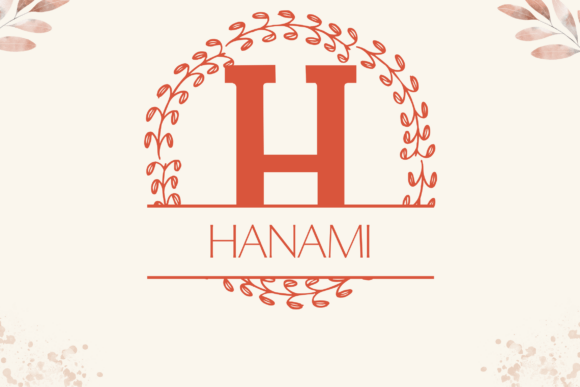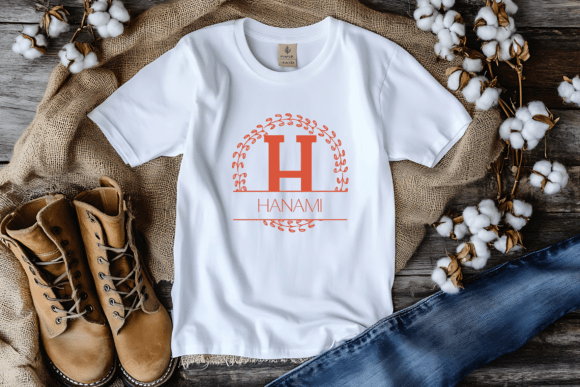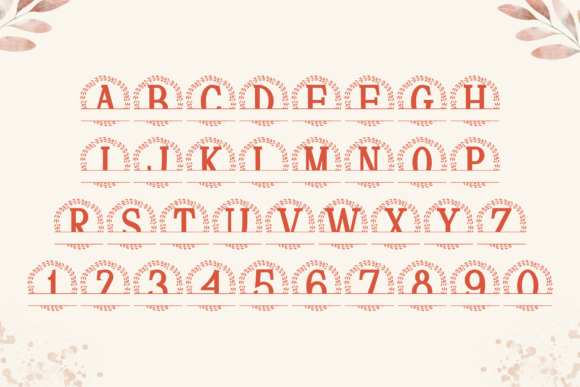
Introduction to Ophelian Split Monogram Font
Have you ever found yourself in the midst of a creative project, surrounded by scraps of paper, font samples, and a sea of design options? As a designer, I know the struggle is real. But what if you could find a single resource that elevates your design game, making it easier to create stunning, high-quality monograms for your clients or loved ones? Enter the Ophelian Split Monogram Font, a refined and elegant serif font that’s about to become your new go-to design resource.
With its classic elegance and clean horizontal break, Ophelian Split Monogram Font is perfect for adding names, initials, or special messages to any monogram. Whether you’re designing custom wedding decor, personalized home items, or creating professional logos, this font delivers timeless style with a user-friendly split format.
Key Features of Ophelian Split Monogram Font
- Unique Monogram Design: The Ophelian Split Monogram Font features a distinctive split monogram design that is perfect for creative projects, making it a valuable design resource.
- Perfect for Personalized Designs: The Ophelian Split Monogram Font is ideal for creating personalized designs, such as wedding invitations, birthday cards, and other special occasion projects.
Honest Review: Ophelian Split Monogram Font
I recently stumbled upon the Ophelian Split Monogram Font, and I must say it’s been a game-changer for my design projects. This font is a high-quality design resource that’s perfect for any creative project.
What works well about the Ophelian Split Monogram Font is its unique, elegant design. It features a beautiful split monogram style that’s both sophisticated and eye-catching. The font is available for free download, which is a huge plus for designers on a budget.
While the Ophelian Split Monogram Font is an excellent choice for most design projects, there are a few limitations to consider: ⚠️
- It’s not suitable for use in very small text sizes, as the intricate design can become difficult to read.
Overall, I’m thoroughly impressed with the Ophelian Split Monogram Font. It’s a versatile and high-quality design resource that’s perfect for any creative project. I’d highly recommend it to fellow designers! ✨
The Ophelian Split Monogram Font is a high-quality design resource ideal for creative projects. This unique font features a split monogram design with a transparent background, making it perfect for use in various design applications.